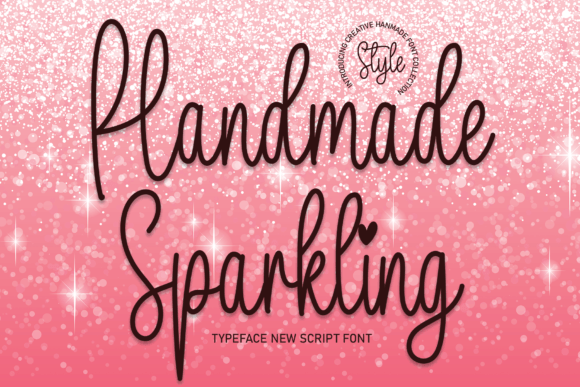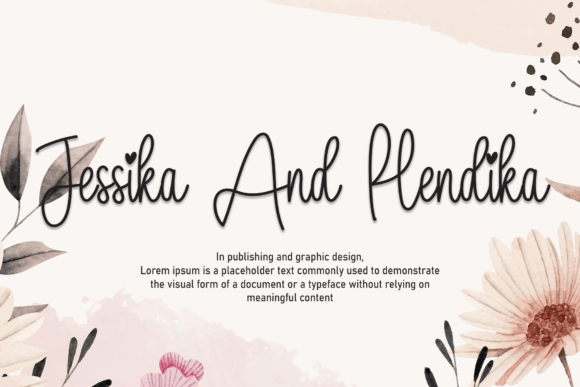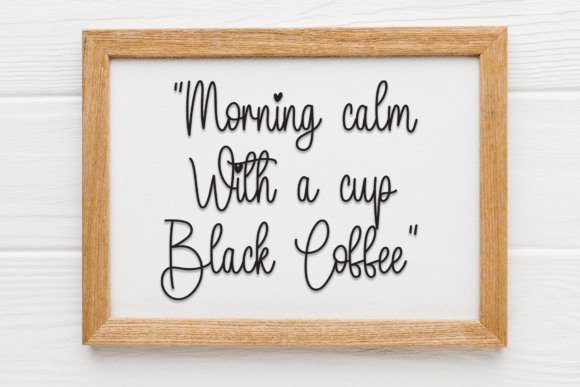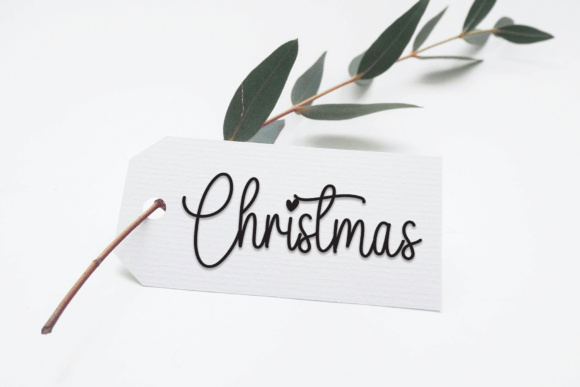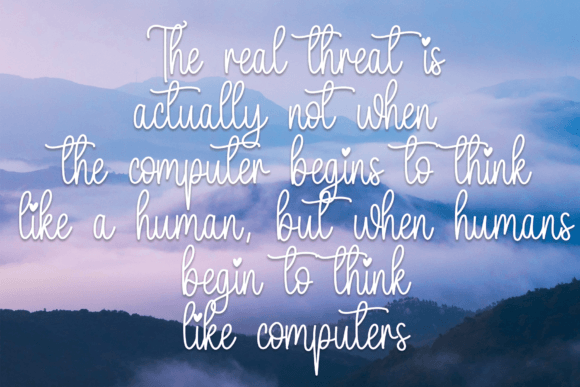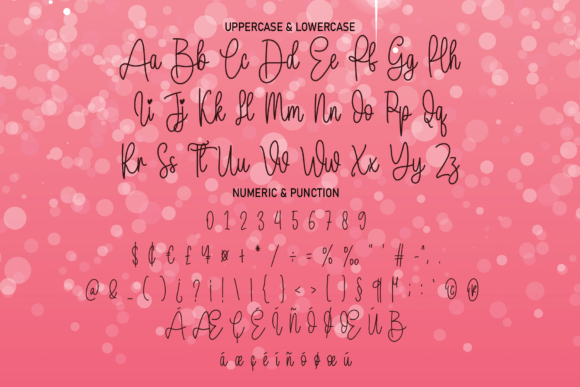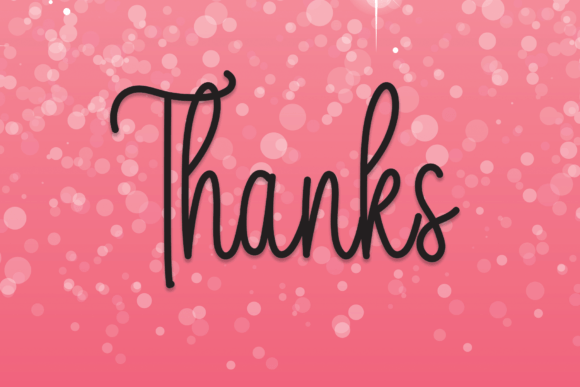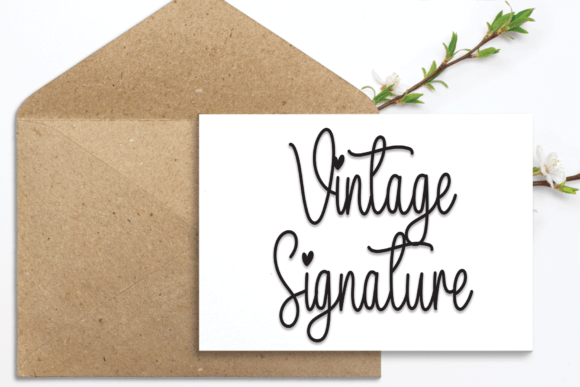
Handmade Sparkling Font
Add a delicate and elegant touch with the Handmade Sparkling font. This handwritten script features distinct and well-balanced letters that make it a true masterpiece. Its incredibly versatile style allows you to create spectacular designs.
The Handmade Sparkling font works perfectly for many creative projects. Use it for wedding invitations, branding, quotes, social media posts, packaging, and more. Its graceful strokes add sophistication and charm to your work.
Each character is carefully crafted with smooth and flowing lines. This creates a polished and refined look. The font balances artistic flair with clear readability. It is ideal for logos, headlines, quotes, and decorative text.
Despite its delicate design, the Handmade Sparkling font remains readable at all sizes. Whether used for bold titles or subtle accents, it adapts perfectly. Its versatility makes it suitable for many creative applications.
Using this font will help your projects stand out. It adds a romantic and professional vibe. If you want your designs to look elegant and memorable, the Handmade Sparklingfont is an excellent choice.
In summary, the Handmade Sparklingfont fits many design needs. From wedding projects to branding and social media, it brings beauty and sophistication. Download it today and create stunning, versatile designs with a delicate handwritten script.